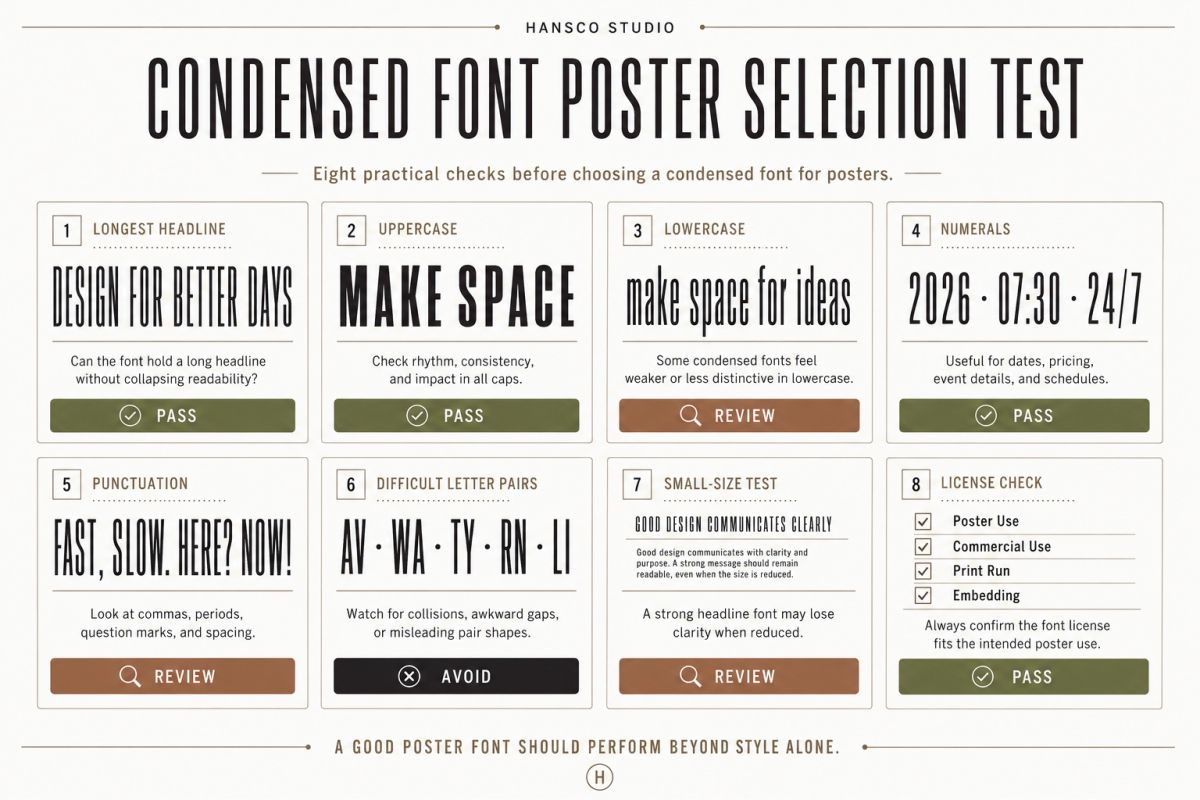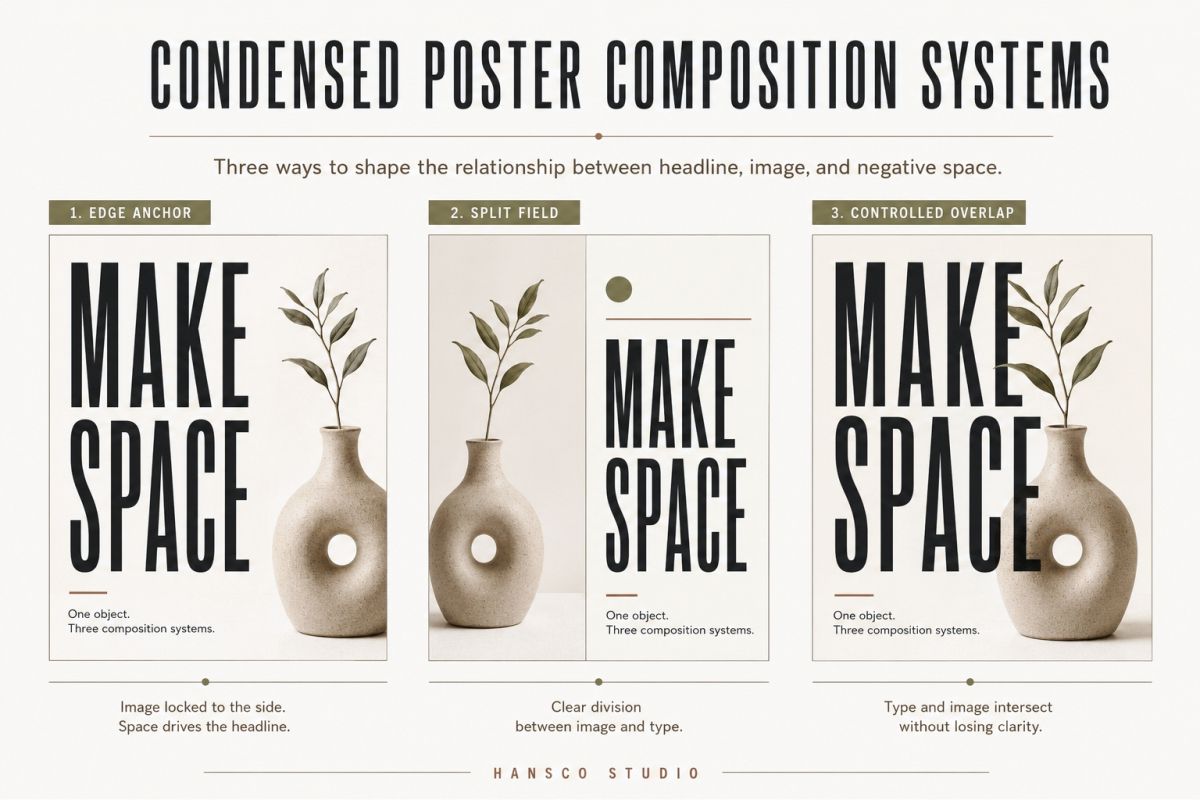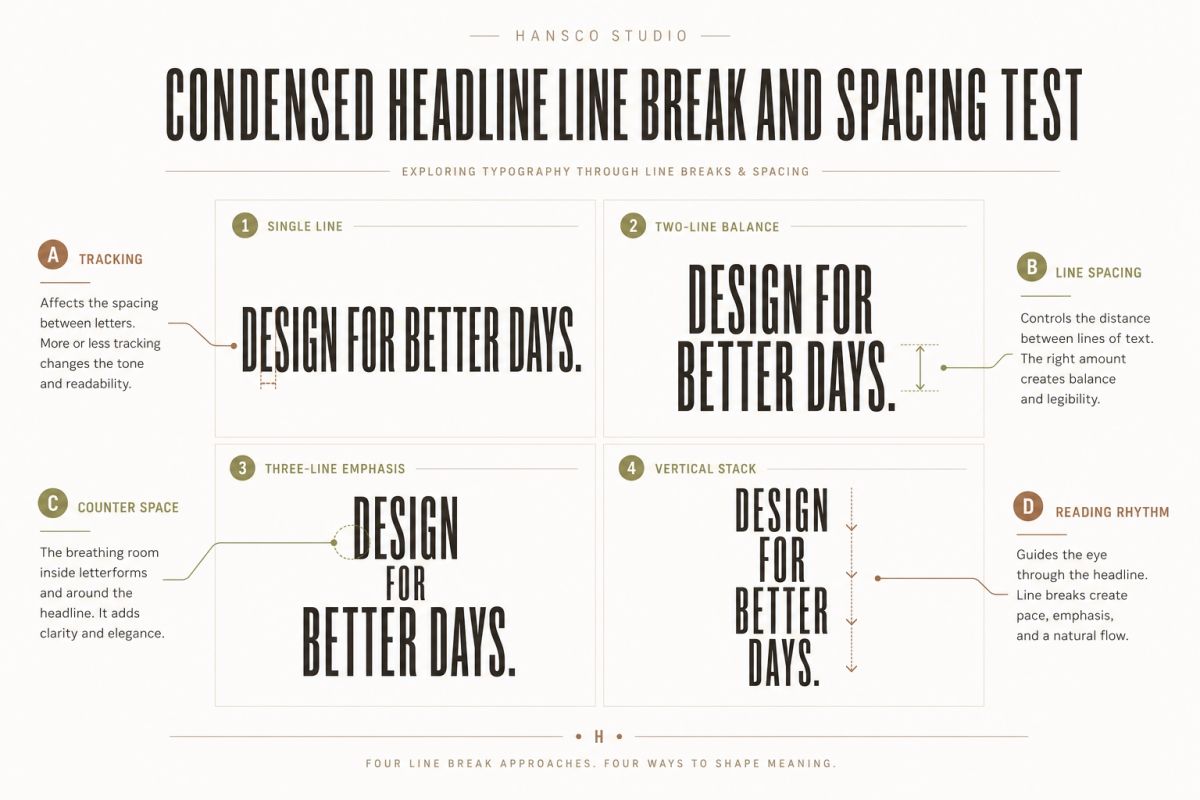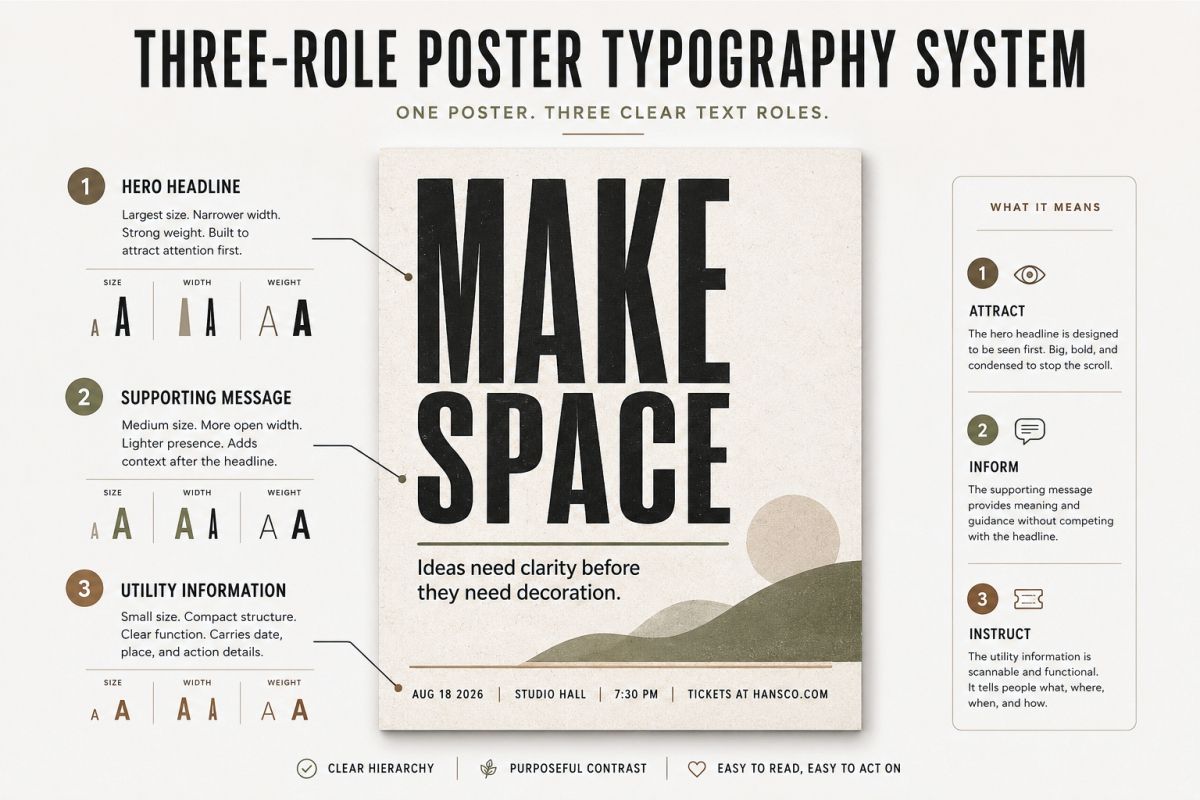
Condensed Fonts for Posters: How to Create Strong Vertical Impact
Condensed fonts for posters can make a simple message feel taller, sharper, and more immediate.
They let you build large headlines without forcing every word beyond the edge of the layout. They also create a distinct visual rhythm. The letters feel compressed horizontally, yet the overall composition can feel expansive vertically.
That contrast is what makes condensed typography so effective.
However, using a narrow typeface is not enough on its own.
A strong poster still needs deliberate line breaks, spacing, hierarchy, image placement, and supporting typography. Without those decisions, a condensed headline can quickly become a crowded block of tall letters.
I like to think of condensed type as a structural tool rather than a shortcut for fitting more words into a smaller space. It helps you control the shape of the message.
In this guide, you will learn how to use condensed fonts for posters with more intention. We will look at vertical impact, poster hierarchy, font pairing, spacing, layout systems, commercial font selection, and common mistakes.
Key Takeaways
• Condensed fonts create impact by allowing larger type inside a controlled horizontal area.
• Strong vertical typography depends on line breaks, scale, spacing, and negative space.
• A condensed headline works best when supporting information uses a quieter typeface.
• You should test the complete poster message before purchasing or licensing a font.
• Condensed fonts are usually strongest in headlines, not long paragraphs.
Why Condensed Fonts Work So Well on Posters
Condensed fonts have narrower letterforms than standard-width typefaces.
The characters take up less horizontal space. As a result, you can increase the font size while keeping the headline inside the poster’s margins.
This produces two useful effects.
First, the headline becomes more visible from a distance.
Second, the text can occupy more vertical space without turning into an extremely wide line.
Imagine placing the words:
CREATIVE MARKET
in a regular bold sans serif.
The line may stretch across almost the entire page. You may need to reduce the font size or break the phrase into smaller lines.
With a condensed typeface, you can make the same words larger while maintaining comfortable side margins. You can also stack them:
CREATIVE
MARKET
The result feels taller, more compact, and more architectural.
This is why condensed fonts appear so often in music posters, editorial covers, fashion campaigns, sports graphics, event promotions, packaging, and bold social media layouts.
They do not merely save space.
They reshape it.
Condensed Fonts For Posters How To Create Strong Vertical Impact Regular Vs Condensed Poster Typography
Vertical Impact Is More Than Using Tall Letters
A poster does not gain vertical impact simply because the letters are narrow.
Vertical impact comes from the relationship between three elements:
Horizontal Compression
A condensed font reduces the width of the headline.
That creates room for larger type, stronger margins, or adjacent visual elements.
Vertical Scale
The headline needs enough height to become a meaningful visual object.
A narrow font used at a small size may still feel weak. The benefit becomes more visible when you let the type grow.
Stacked Rhythm
Line breaks create upward and downward movement.
A three-line headline can form a strong vertical column. A single narrow line may only feel like a compact label.
You can think of the formula like this:
Compression + Scale + Stacking = Vertical Impact
The condensed typeface provides the compression. Your layout decisions provide the scale and rhythm.
Six Condensed Font Directions for Different Poster Styles
Not every condensed font communicates the same mood.
Some feel industrial. Some feel elegant. Others feel nostalgic, athletic, technical, or experimental.
Before choosing a font, decide what kind of visual energy your poster needs.
1. Neutral Condensed Grotesk
A neutral condensed grotesk has clean, functional shapes and relatively simple details.
It works well when you want the poster to feel modern without becoming overly stylized.
Use it for:
• Conferences
• Exhibitions
• Architecture events
• Contemporary branding
• Informational campaigns
• Minimal promotional posters
This direction gives you strong structure while leaving room for photography, illustration, or color to define the mood.
2. Editorial Condensed Serif
A condensed serif adds a more literary or sophisticated tone.
Its narrow proportions can feel dramatic, especially when paired with high stroke contrast or sharp serifs.
Use it for: